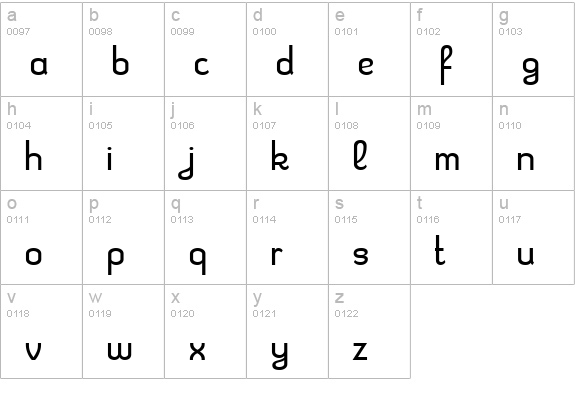
Kleptocracy Light is a refined, elegant variant in the Kleptocracy typeface family \xE2\x80\x94 well suited to elegant body text, refined sub-headings, and luxury branding.
Kleptocracy Light font is a sleek and elegant typeface that exudes sophistication and modernity. With its clean lines and contemporary design, this font is perfect for a wide range of projects, from branding to editorial design. The light weight of the font adds a touch of delicacy and refinement to any text, making it ideal for conveying a sense of elegance and sophistication. What makes Kleptocracy Light font even more appealing is that it is available for free download at FontsMarket.com. This means that you can easily access this stylish font without any cost, making it a valuable addition to your font library. Whether you're a designer looking for a versatile typeface or a hobbyist in need of a modern font for your projects, Kleptocracy Light font is sure to impress with its clean and contemporary style.